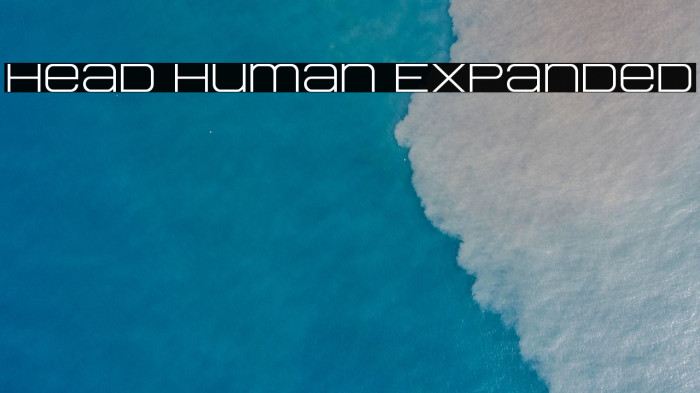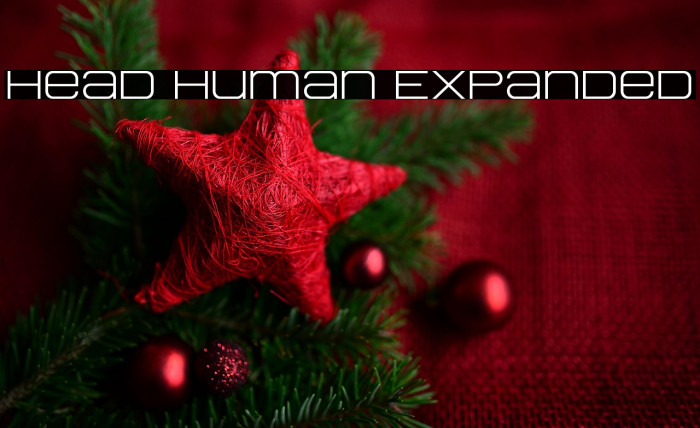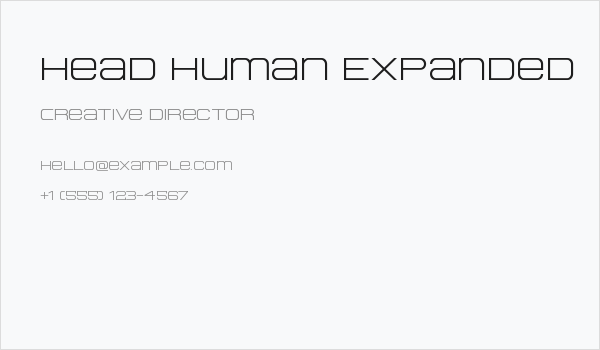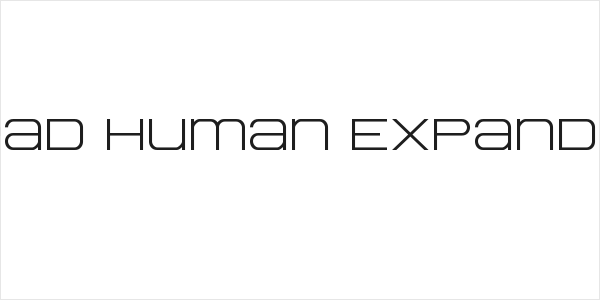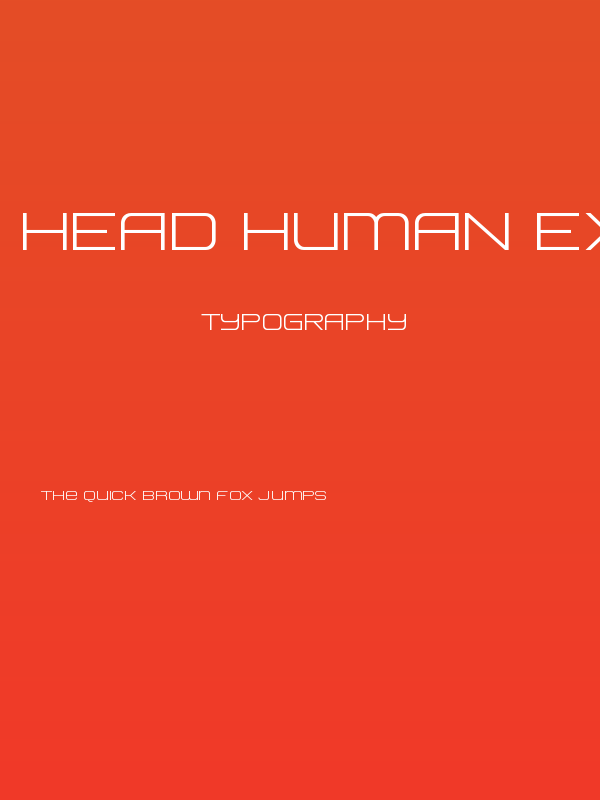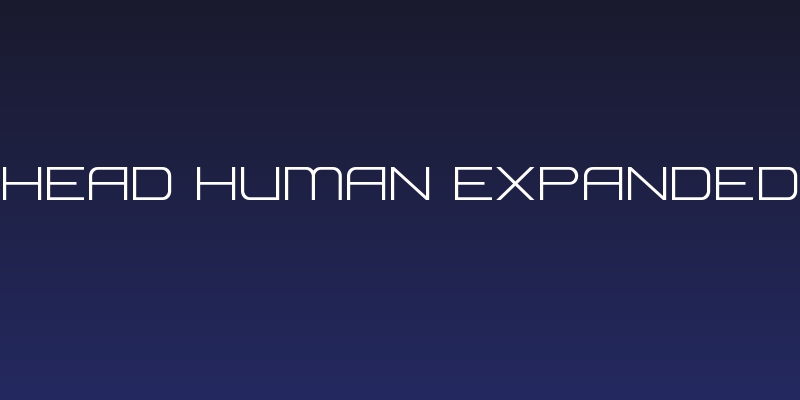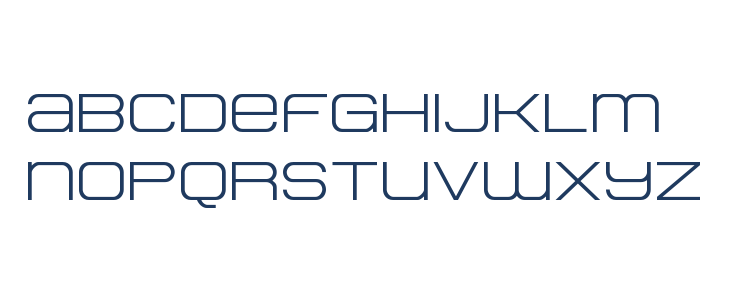
Head Human Expanded Font
Head Human Expanded Description
This font features a modern, geometric design with clean lines and a futuristic aesthetic. The characters are constructed with a uniform stroke width, giving it a sleek and minimalistic appearance. The uppercase and lowercase letters maintain a consistent style, with rounded edges and a slightly expanded width that enhances readability. The numerals and special characters follow the same design principles, ensuring a cohesive look across all elements. This font's structure is both functional and stylish, making it suitable for various contemporary design applications.
| Use Case | Headlines, Logos, Digital Interfaces |
| Proposed Projects | Ideal for tech branding, digital interfaces, modern posters, and futuristic-themed projects. |